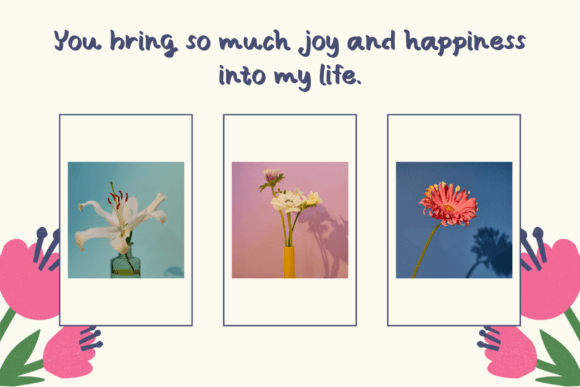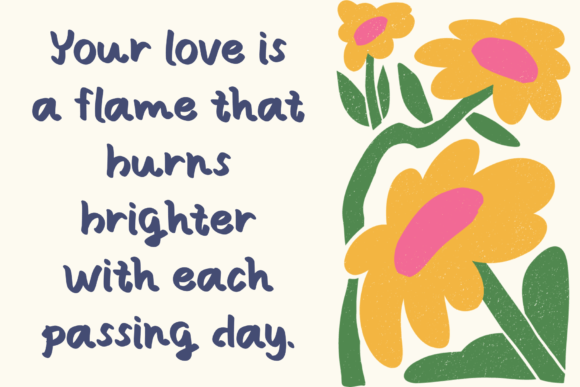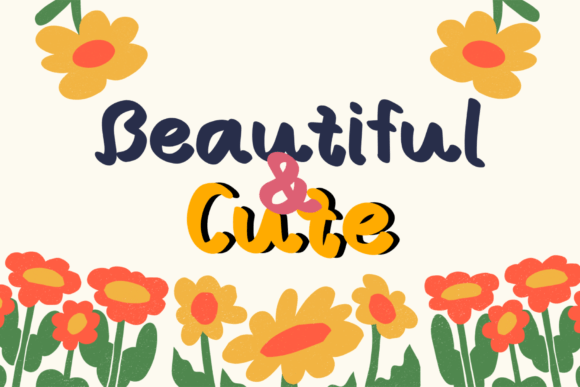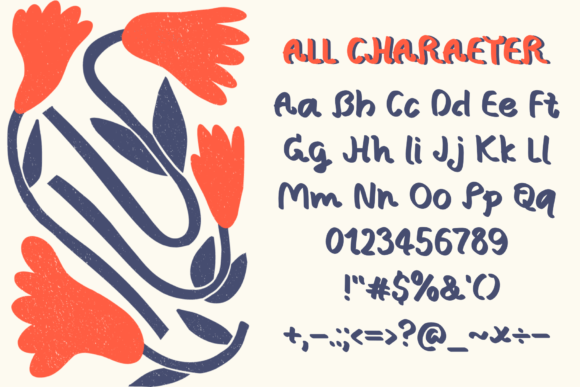
Introduction to Beautiful & Cute Font
Have you ever been working on a creative project and struggled to find the perfect font to bring your vision to life? I know I have! Whether it’s a birthday card for a loved one, a logo for a new business, or a social media graphic to promote your latest product, the right font can make all the difference. That’s why I’m excited to introduce you to the Beautiful & Cute Font, a stunning and versatile font that’s sure to add a touch of magic to your designs.
With its elegant curves and playful swashes, the Beautiful & Cute Font is perfect for designers looking to add a touch of whimsy and charm to their projects. Whether you’re working on a design resource or creating graphics with a transparent background, this high-quality font is sure to elevate your work and captivate your audience. And the best part? It’s available for free download, making it a valuable addition to any designer’s toolkit.
So why is the Beautiful & Cute Font so valuable for designers? For one, it offers a level of creativity and flexibility that’s hard to find in other fonts. With its adorable glyphs and swashes, it’s perfect for adding a personal touch to your designs. Plus, its high-quality design ensures that it will look great on any device or screen, making it a must-have for any designer looking to create stunning visuals.
Key Features of Beautiful & Cute Font
- High-quality design resource ideal for creative projects, posters, and social media graphics.
- Features a transparent background, making it easy to customize and layer over different images.
- Comes in 5 different font sizes (12, 14, 16, 18, and 20 pt) to suit various design needs.
- Resolution: 300 DPI for high-quality printing and web use.
- Unique characteristics include rounded edges, playful curves, and a mix of uppercase and lowercase letters.
- Perfect for creating a whimsical and child-friendly atmosphere in designs, making it ideal for kids’ party invitations, nursery decor, and more.
Honest Review: Beautiful & Cute Font
As a designer, I’m always on the lookout for high-quality design resources to elevate my creative projects. Recently, I stumbled upon the Beautiful & Cute Font, and I’m excited to share my honest review with you.
What works well: ✨ The Beautiful & Cute Font is incredibly versatile, making it perfect for a wide range of design projects, from children’s books to greeting cards. The font’s charming and playful style is sure to bring a smile to anyone’s face. I also appreciate the transparent background, which allows for easy customization and blending with other design elements.
- High quality: The Beautiful & Cute Font is expertly designed, ensuring a professional finish on any project.
Any limitations: ⚠️ While the Beautiful & Cute Font is perfect for most design projects, it may not be the best choice for formal or corporate designs, where a more serious tone is required.
Overall, I’m thoroughly impressed with the Beautiful & Cute Font. Its high-quality design, versatility, and free download make it a valuable addition to any designer’s toolkit. Whether you’re working on a creative project or simply need a fun font for a personal design, the Beautiful & Cute Font is definitely worth checking out.
How to Use Beautiful & Cute Font
The Beautiful & Cute Font is a high-quality design resource that can add a touch of sweetness to your creative projects. With its transparent background, this font is perfect for use in various design software.
You can use the Beautiful & Cute Font in a variety of design software, including:
– Use the font in your Canva designs for a cute and playful touch.
– Import the font into your Adobe design software for use in your projects.
– Add the font to your presentations and documents for a touch of whimsy.
To get the most out of the Beautiful & Cute Font, use it in combination with other design elements, such as illustrations and graphics, to create a cohesive and visually appealing design.
The Beautiful & Cute Font is perfect for use in a variety of projects, including:
- Children’s books and educational materials
- Food and beverage branding